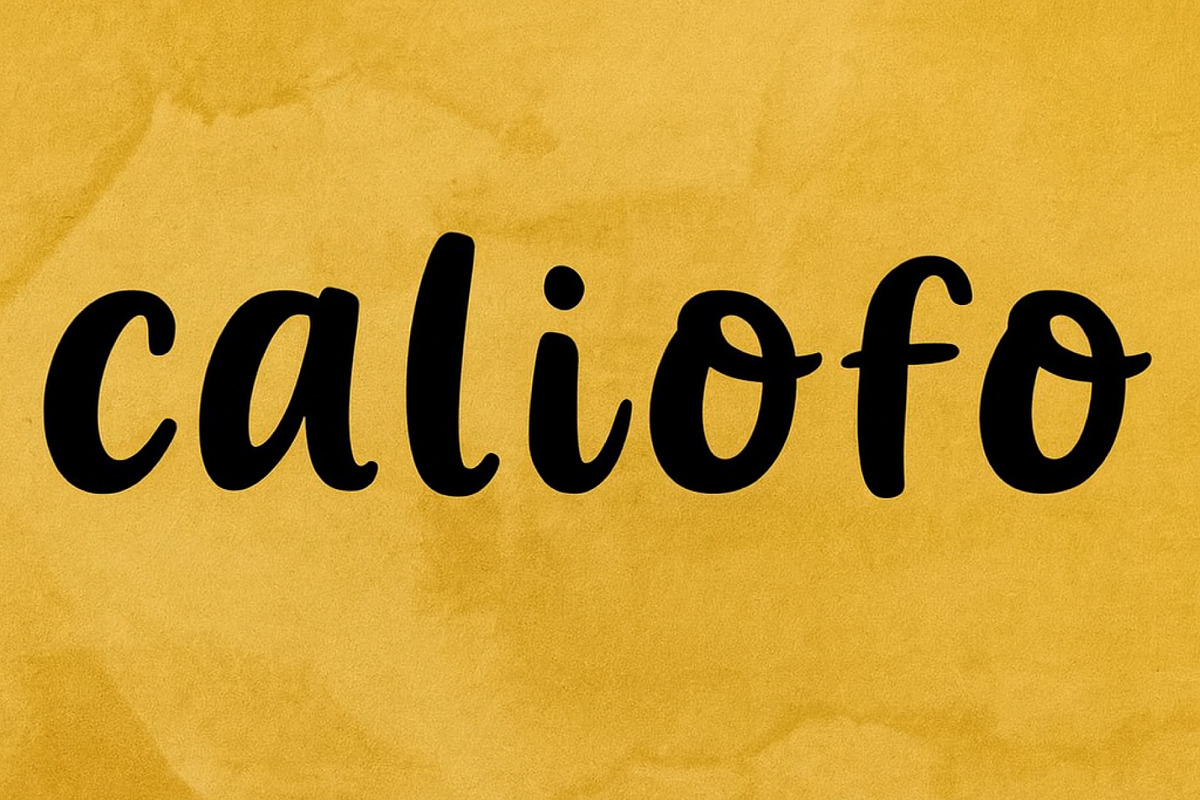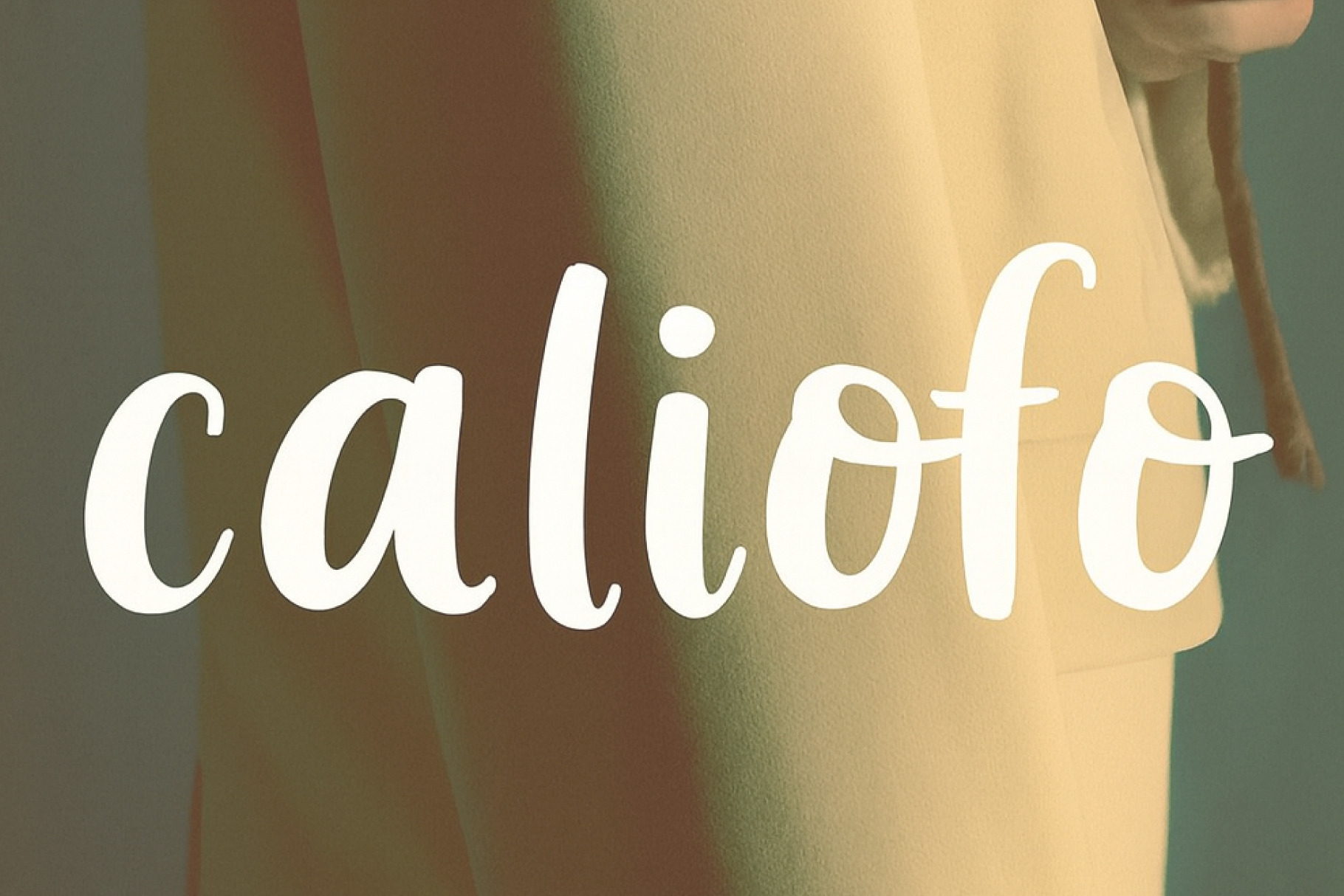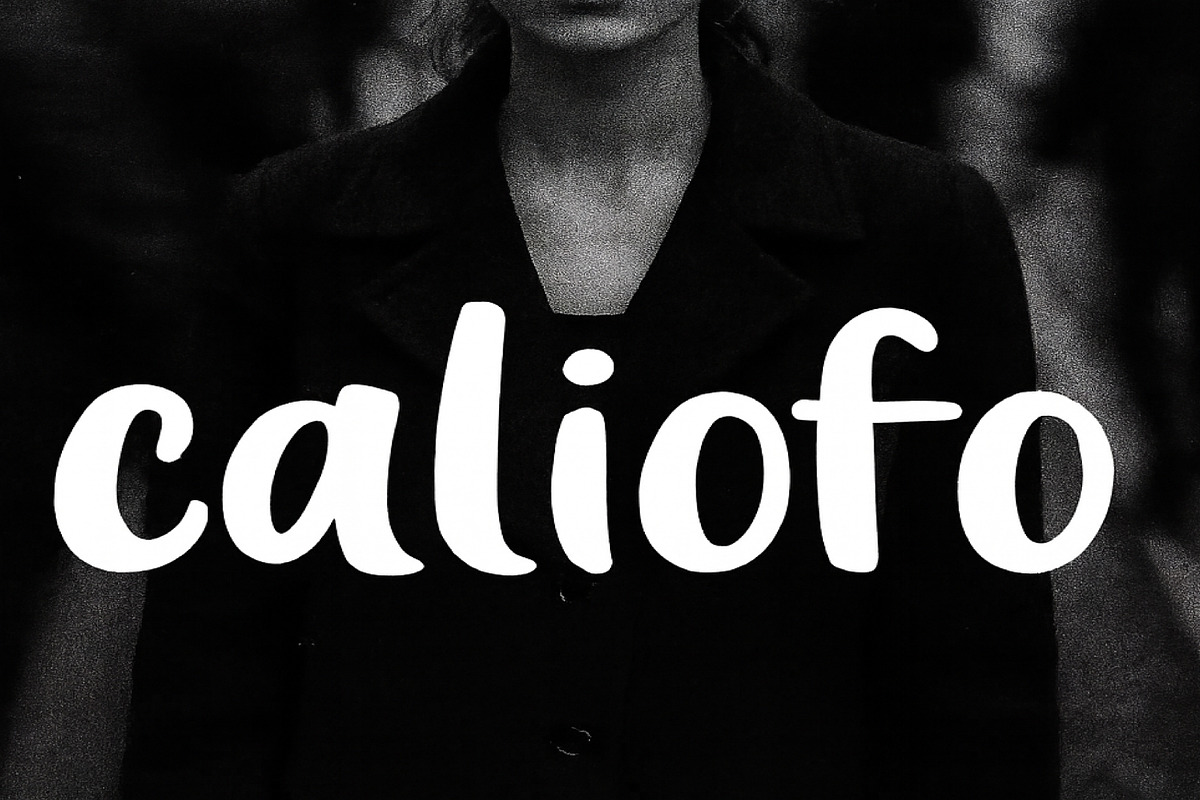
Caliofo – Bold Cursive Script Font
Introducing Caliofo – Bold Rounded Cursive Script Font
Caliofo is a handcrafted cursive script font with bold, rounded strokes and smooth connections. Designed for modern branding and creative projects, this typeface blends elegance with playfulness, making it perfect for fashion, lifestyle, and editorial designs.
Whether you’re creating a logo, packaging design, social media graphics, or wedding invitations, Caliofo adds personality and charm to your work. Its versatile style works beautifully in both large headlines and smaller text, ensuring readability across different mediums.
✨ Features Uppercase & lowercase letters
Smooth cursive connections
Bold rounded strokes for strong visibility
Perfect for logos, branding, posters, packaging, and social media
🎯 Ideal For Fashion branding & boutique logos
Wedding invitations & stationery
Social media posts & digital marketing
Editorial layouts & magazine covers
Product packaging & lifestyle design
💡 Why Choose Caliofo? Caliofo is more than just a font—it’s a design tool that helps you create memorable, stylish, and professional visuals. Its bold yet elegant curves make it stand out in any project, while maintaining readability and versatility.